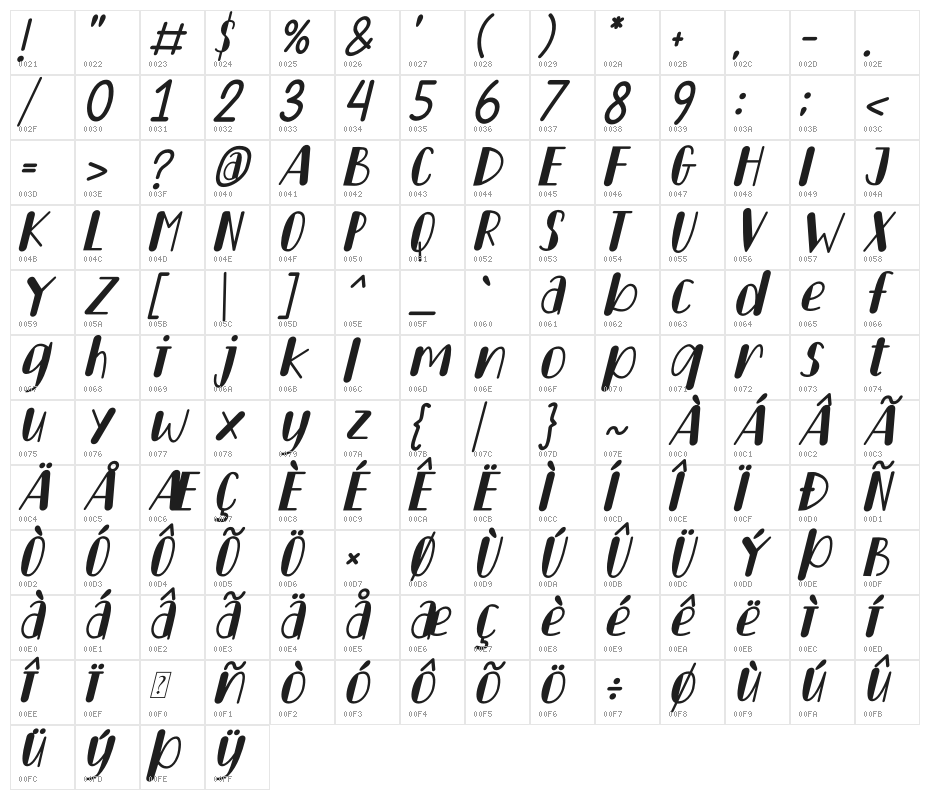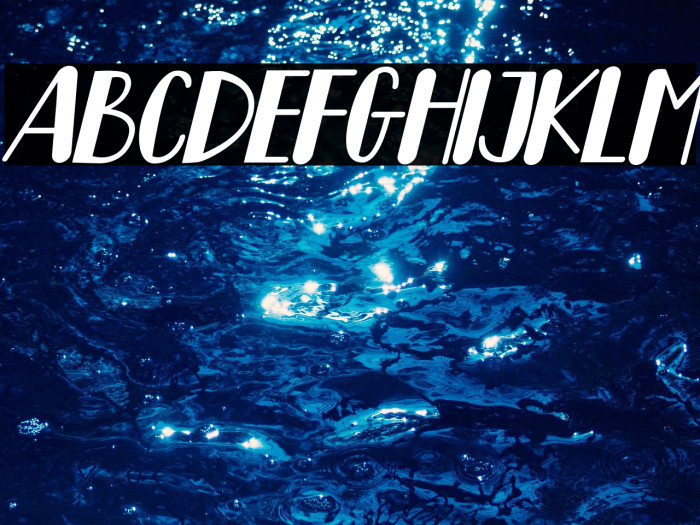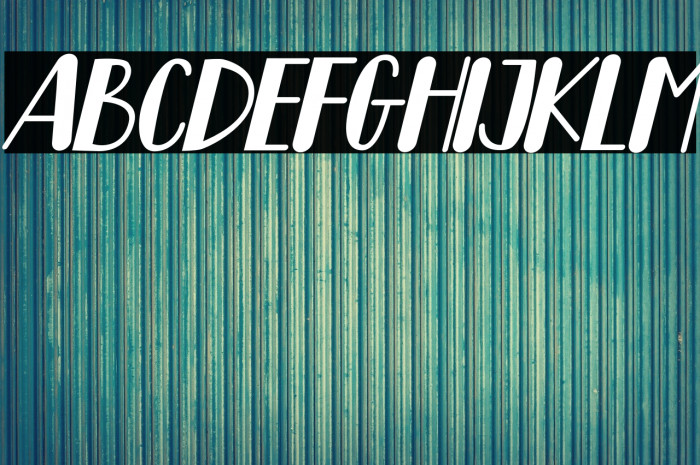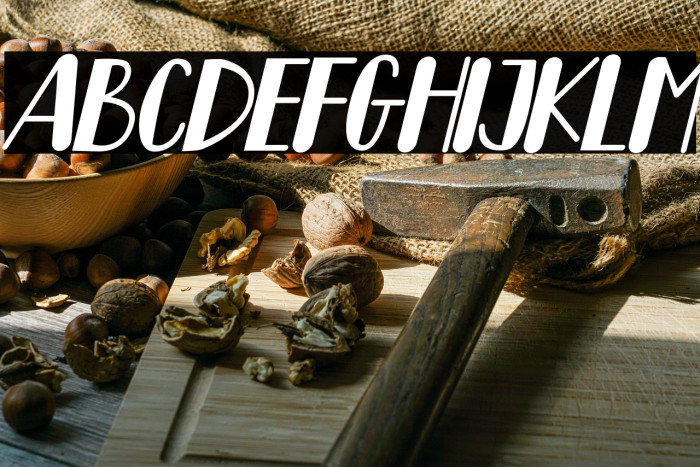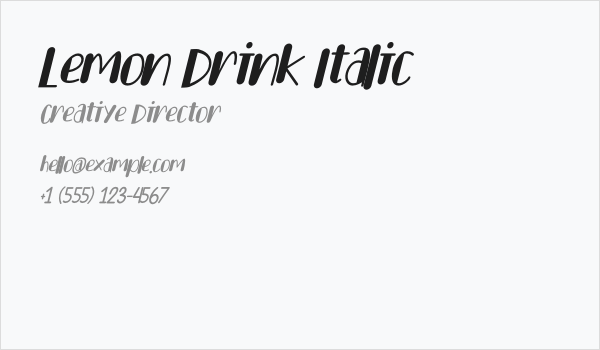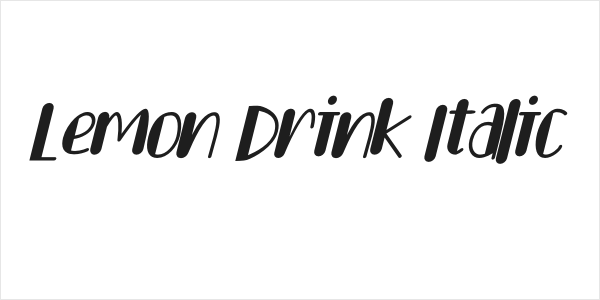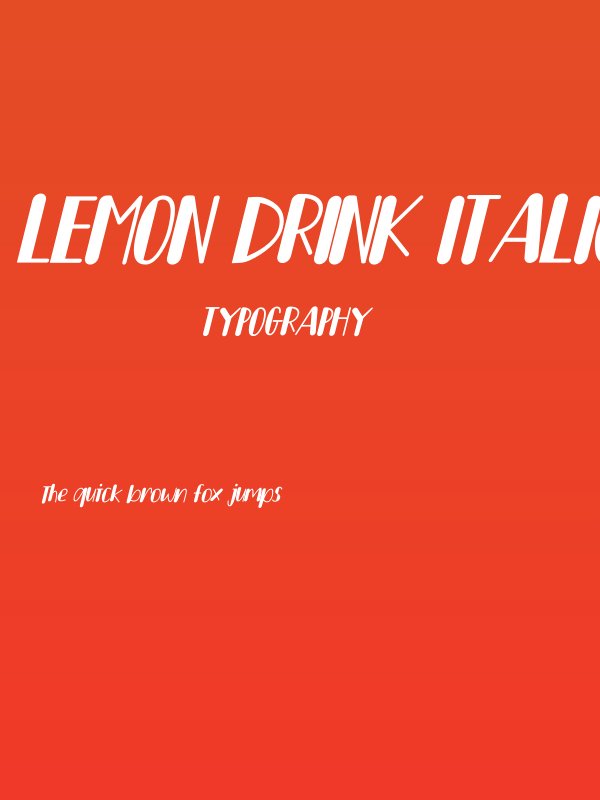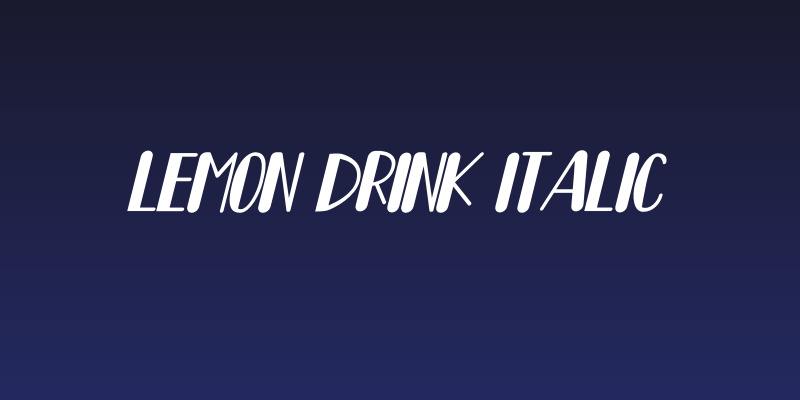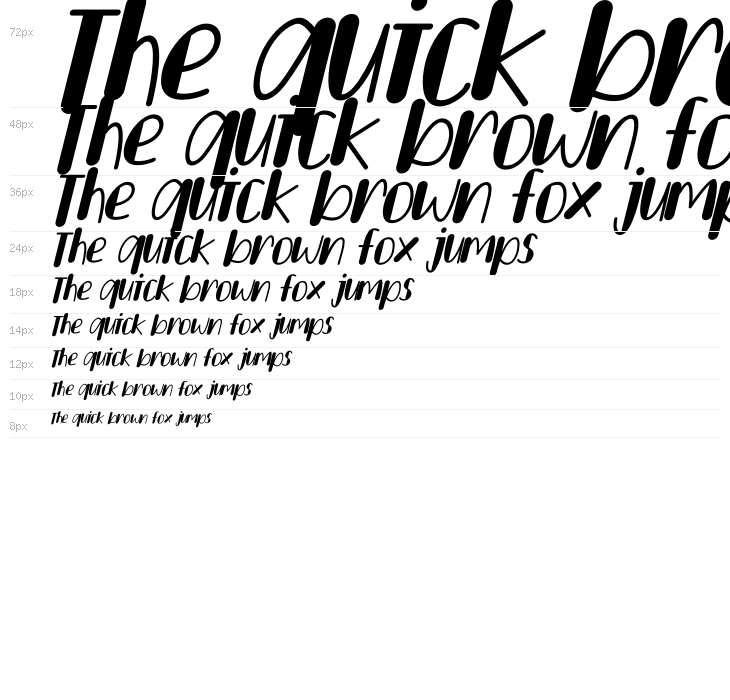
Lemon Drink Italic Font
Lemon Drink Italic Description
This font features a dynamic and energetic style with a pronounced slant, giving it an italicized appearance. The characters are bold and have a fluid, handwritten feel, which adds a sense of movement and personality. The uppercase letters are tall and slightly narrow, while the lowercase letters maintain a consistent flow with rounded edges. The numerals are equally bold, matching the overall style of the alphabet. Special characters are creatively integrated, maintaining the font's cohesive look. This font is ideal for projects that require a lively and informal touch.
| Proposed Projects | Great for branding, posters, and creative projects that need a lively and informal touch. |